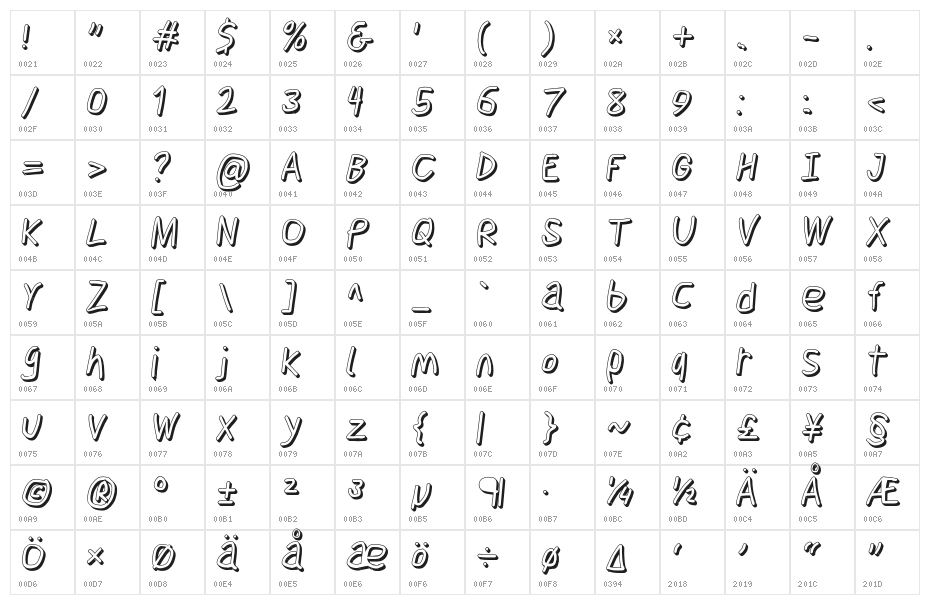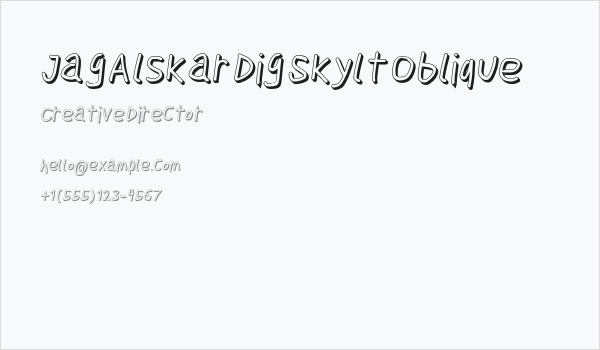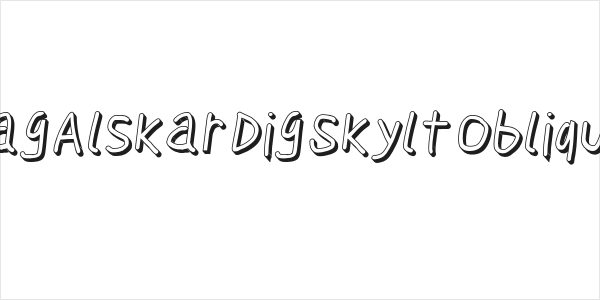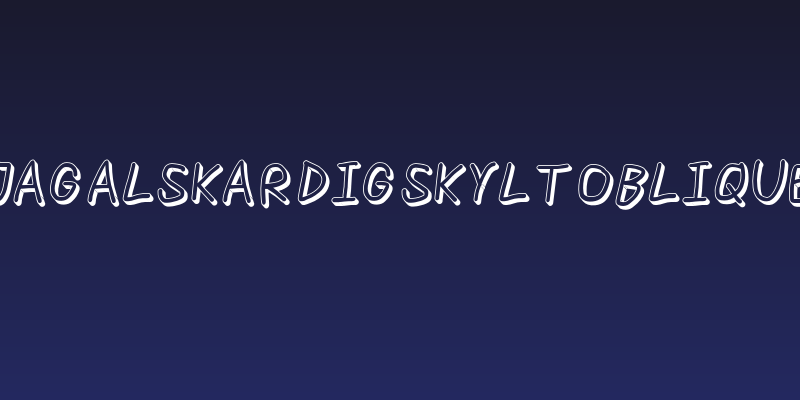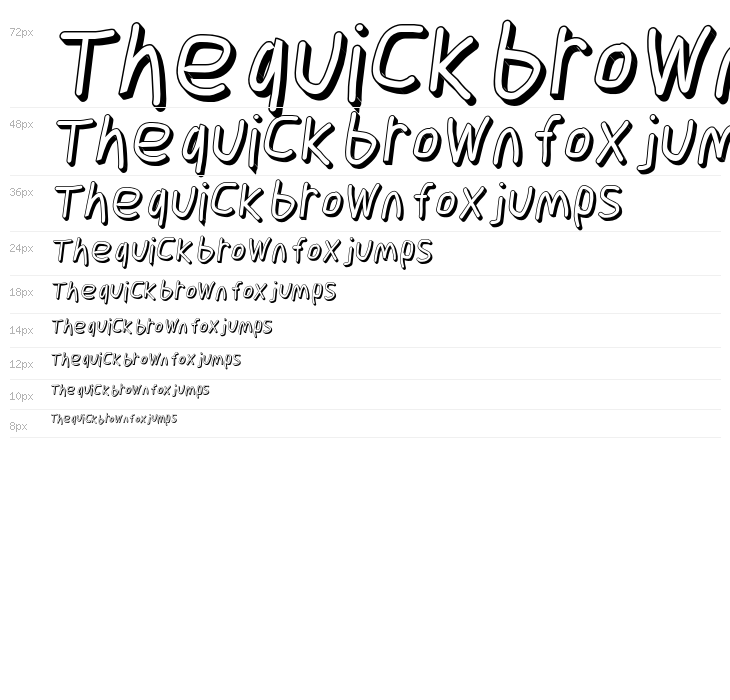
Jag Alskar Dig Skylt Oblique Font
Jag Alskar Dig Skylt Oblique Description
This font features a playful and dynamic style with a hand-drawn appearance. The letters are slightly slanted, giving an oblique effect that adds to its casual and informal feel. Each character is outlined, creating a bold and eye-catching look. The strokes are consistent in width, contributing to a uniform appearance across the alphabet. The font includes both uppercase and lowercase letters, numerals, and a variety of special characters, making it versatile for different design needs. Its unique style is perfect for projects that require a fun and approachable aesthetic.
| Proposed Projects | Ideal for children's books, playful branding, greeting cards, and casual posters. |